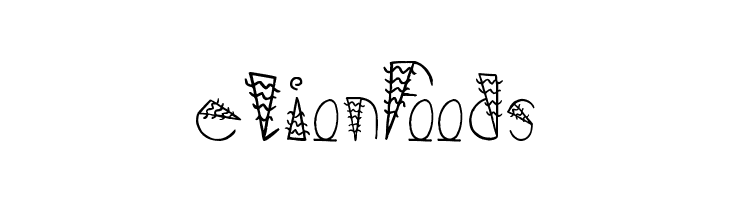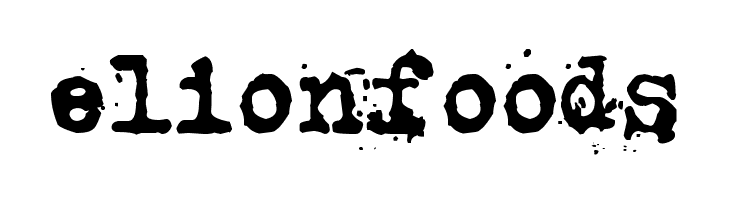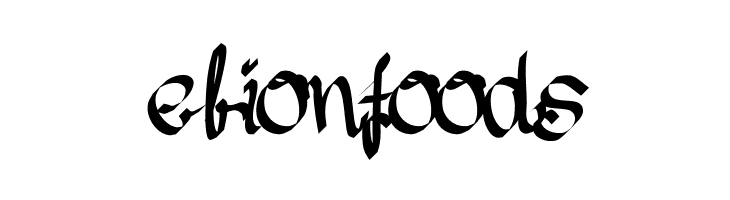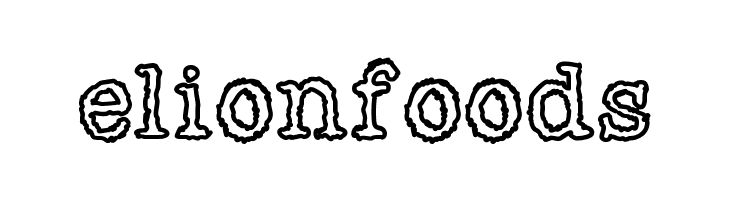
A bold, decorative font with a modern blackletter style and distressed texture.
A bold, textured font with a distressed, grunge style.
A chaotic, graffiti-inspired font with irregular, jagged strokes.
A sharp, edgy font with a fragmented, jagged appearance.
A bold, grunge-style font with a rugged and distressed appearance.
A bold, gothic-style font with sharp, angular lines and intricate details.
A bold, angular font with a tribal and geometric style.
A futuristic and geometric font with clean lines and modern design.
A bold, edgy font inspired by body piercings and chains.
An edgy, punk-inspired font with chain and piercing motifs.
A bold, distressed font with a vintage, grunge aesthetic.
A bold, textured font with a distressed, grunge aesthetic.
A bold, decorative font with thorn-like, angular designs.
A diverse collection of geometric and symbolic bullet designs for decorative use.
A bold, punk-inspired font with thorn-like embellishments for a rebellious look.
A distressed, blackletter-inspired font with a grunge aesthetic.
A bold, angular font with a gothic flair, perfect for dramatic and impactful designs.
Illustrative display font with profile heads and totemic symbols.
A distressed, grunge-style font with a textured, vintage appearance.
Ornate skull illustrations form each character in this decorative display font.
A chaotic and expressive handwritten font with irregular strokes.
A bold, gothic-inspired font with intricate details and dramatic flair.
A bold, distressed font with a rugged, grunge aesthetic.
A grunge-inspired font with dripping, chaotic strokes for a rebellious look.
A bold, distressed font with a grunge texture and blocky structure.
A bold, distressed decorative font with a grunge aesthetic.
A bold, graffiti-inspired font with sharp, angular strokes and a rebellious flair.
A bold, textured font with a distressed, vintage appearance.
A bold, distressed font with a grunge, vintage style.
A bold, distressed font with tall, narrow letterforms and a gritty, weathered texture.
A bold, distressed font with sharp, angular edges and a gritty texture.
A bold, distressed font with a grunge aesthetic.